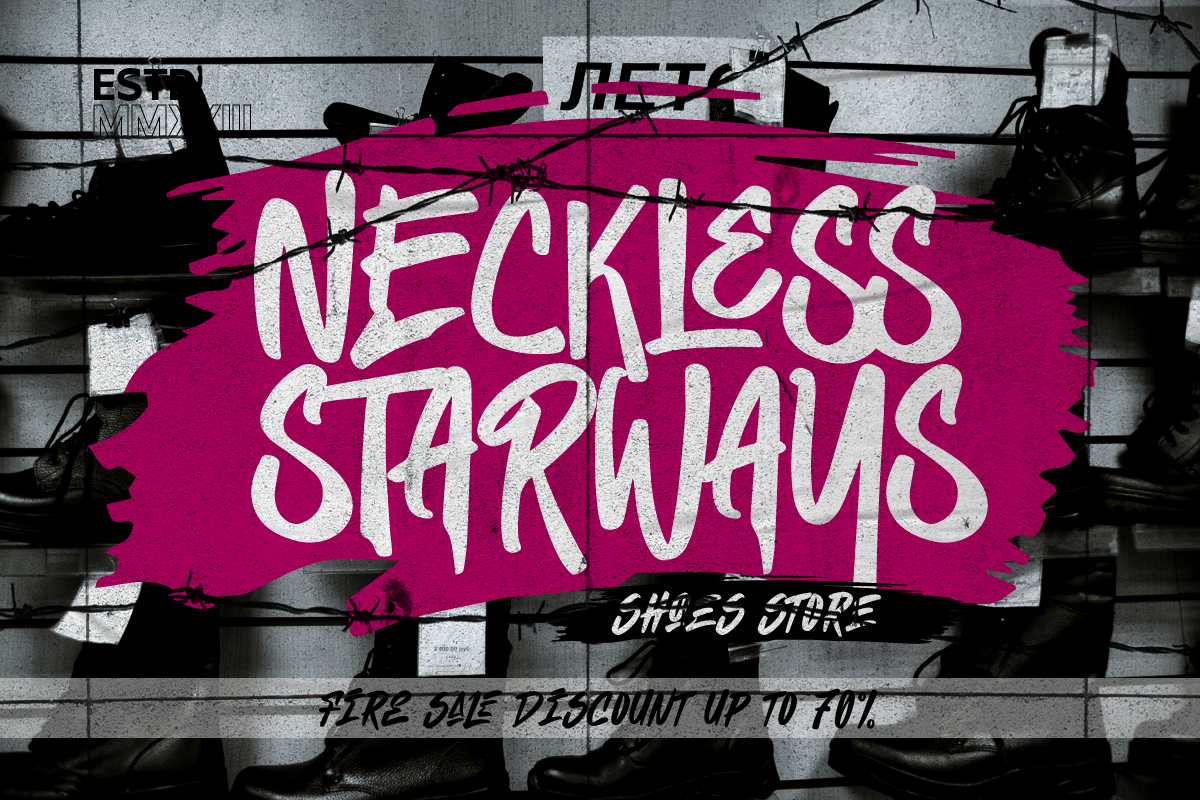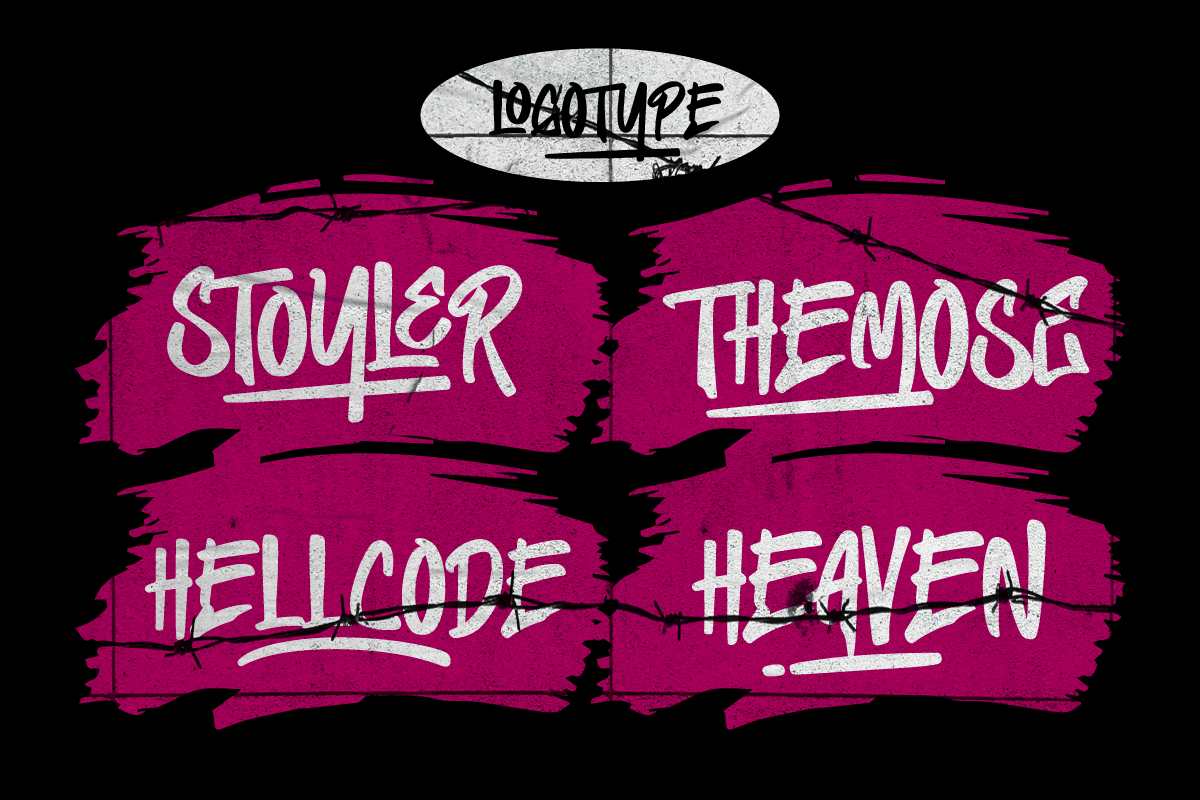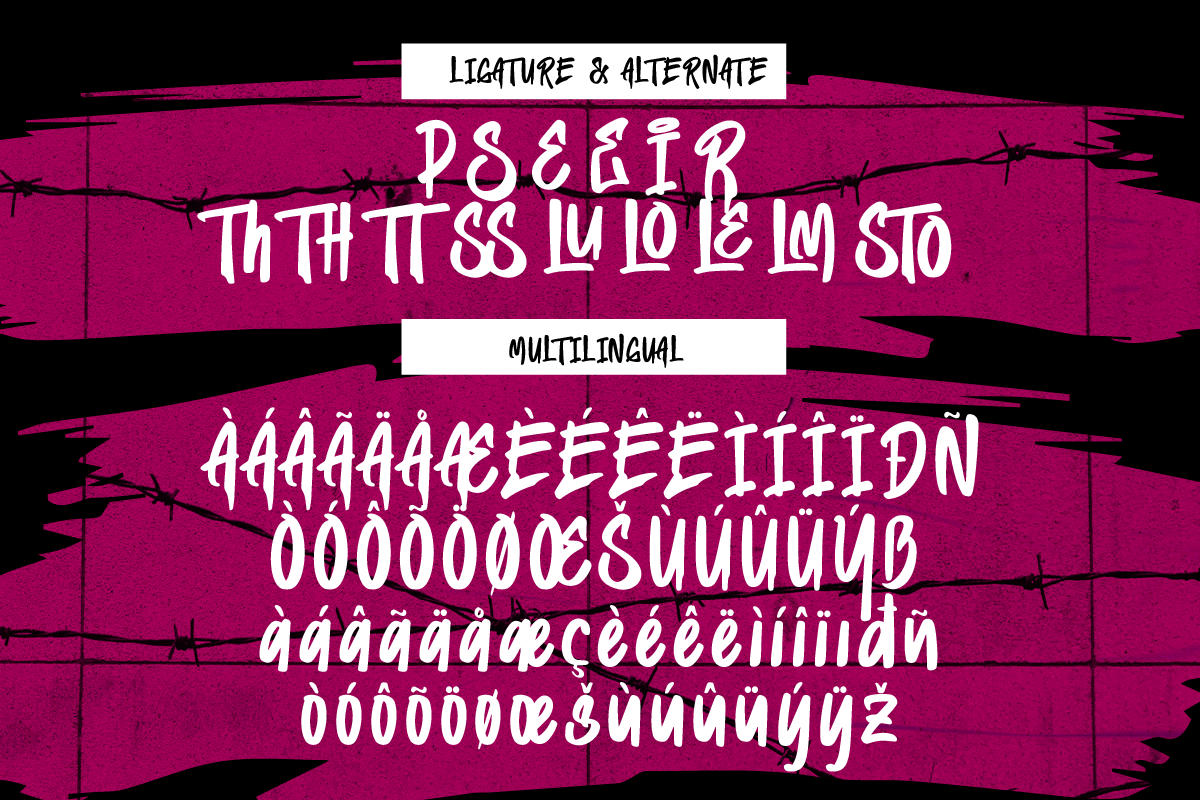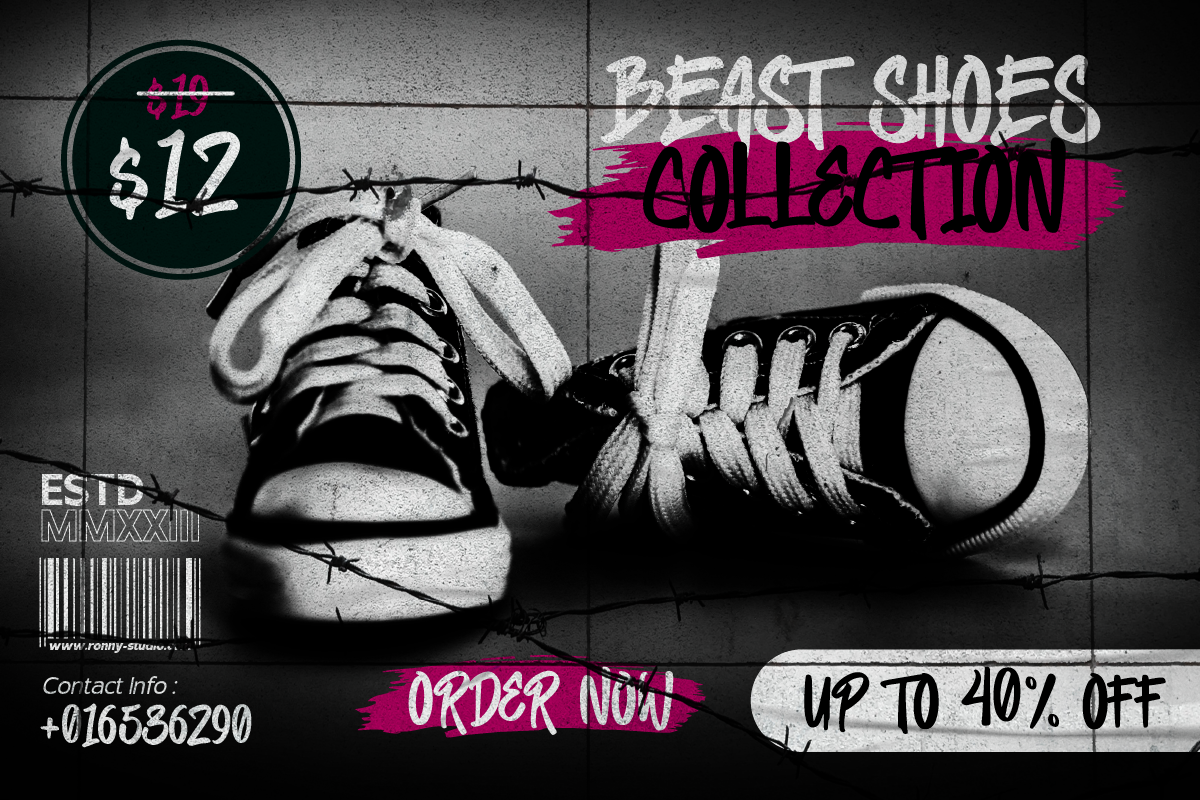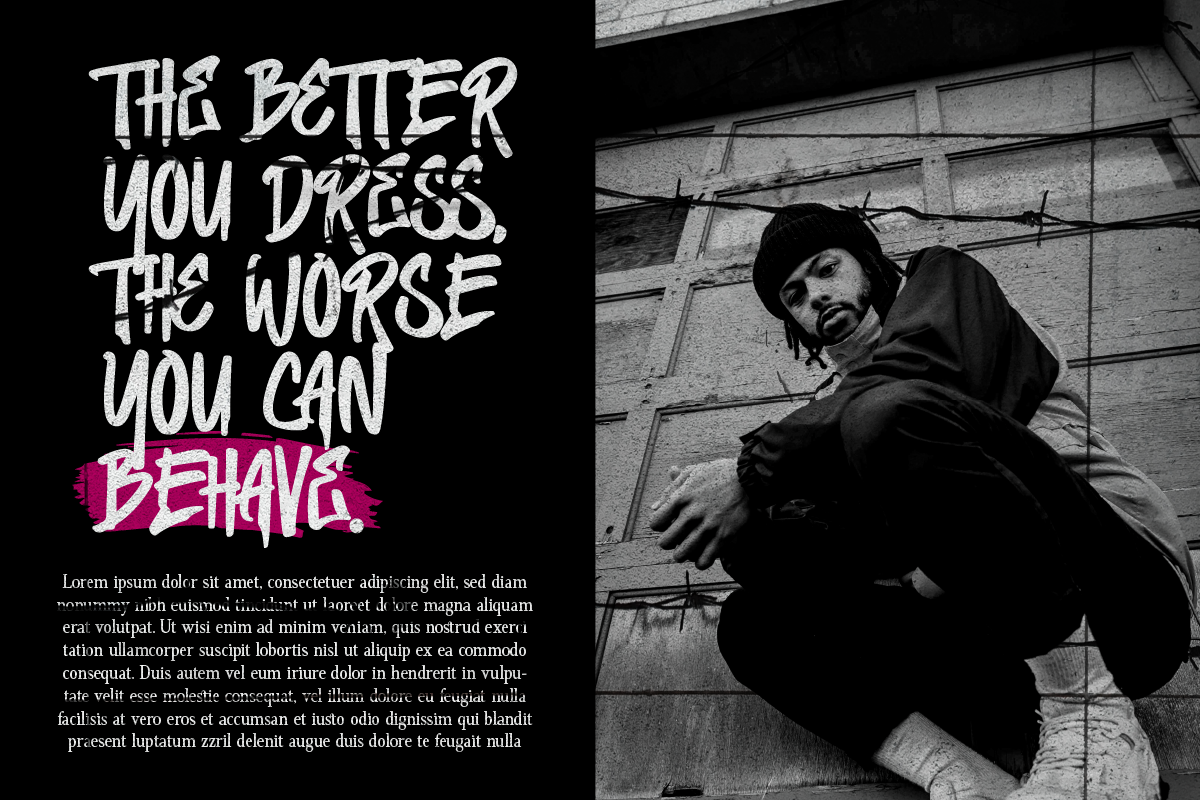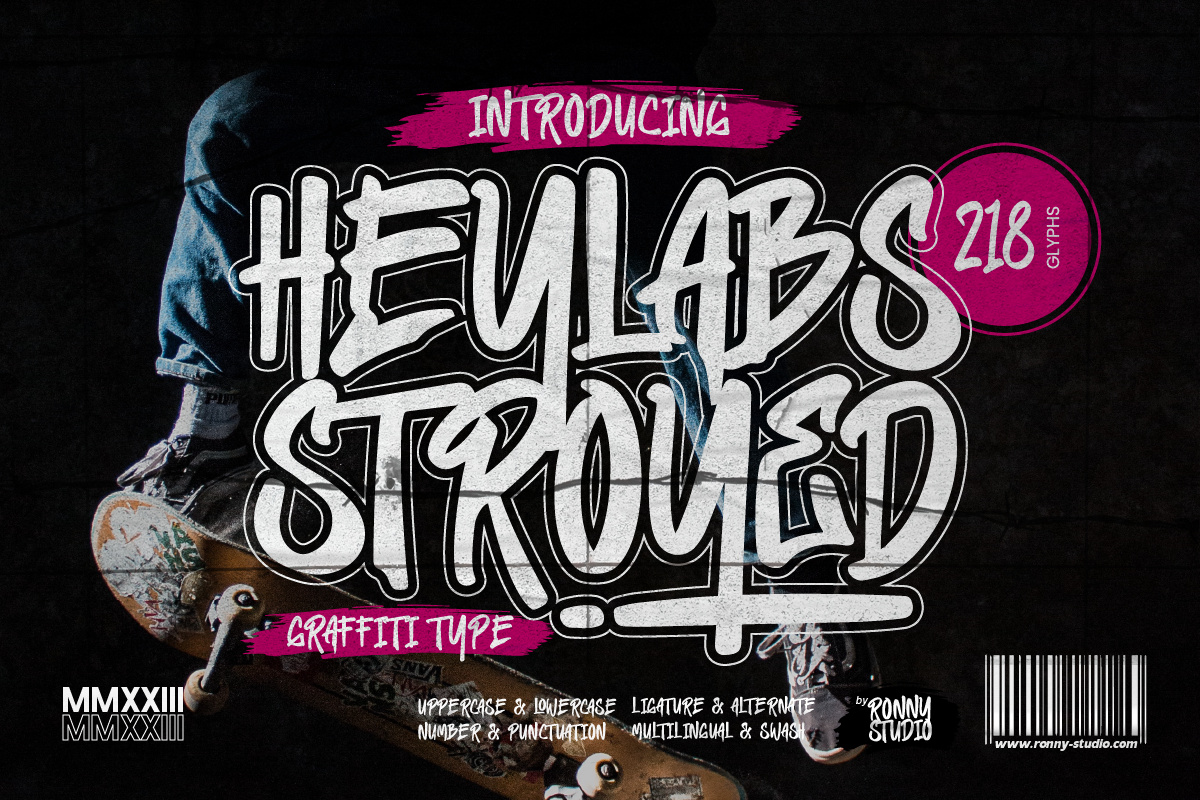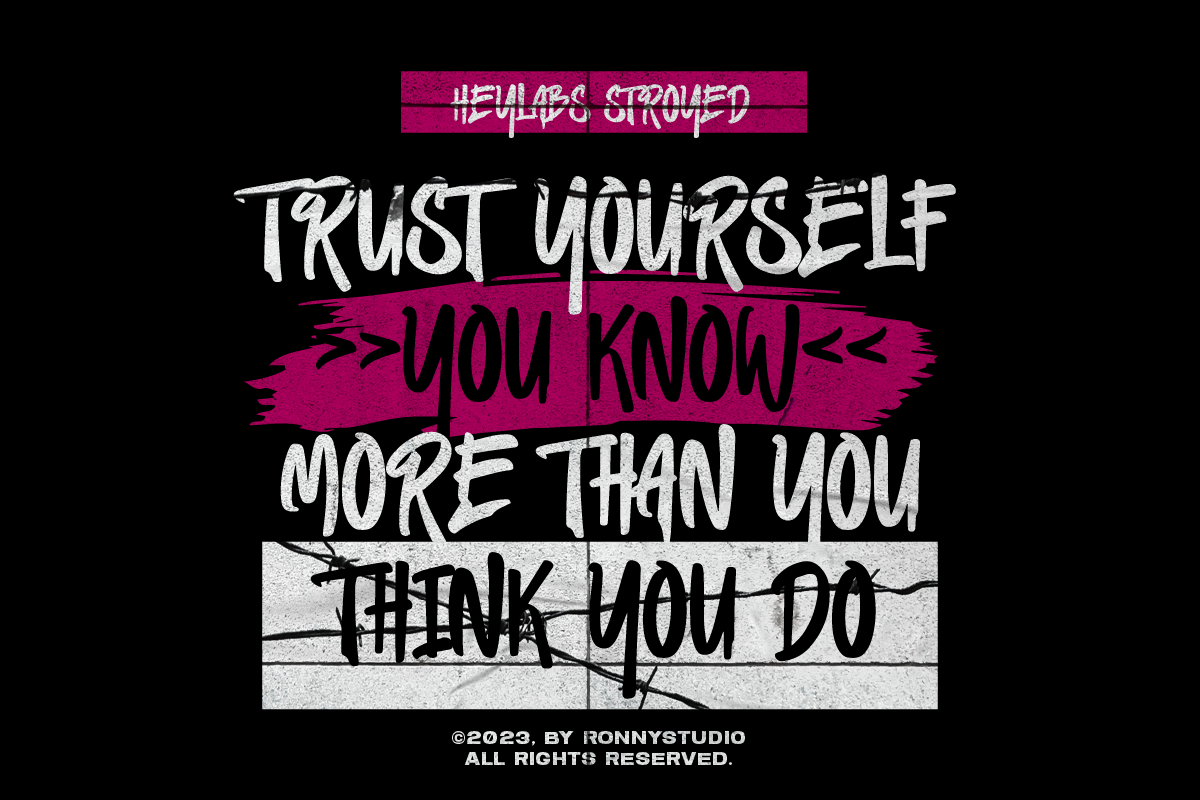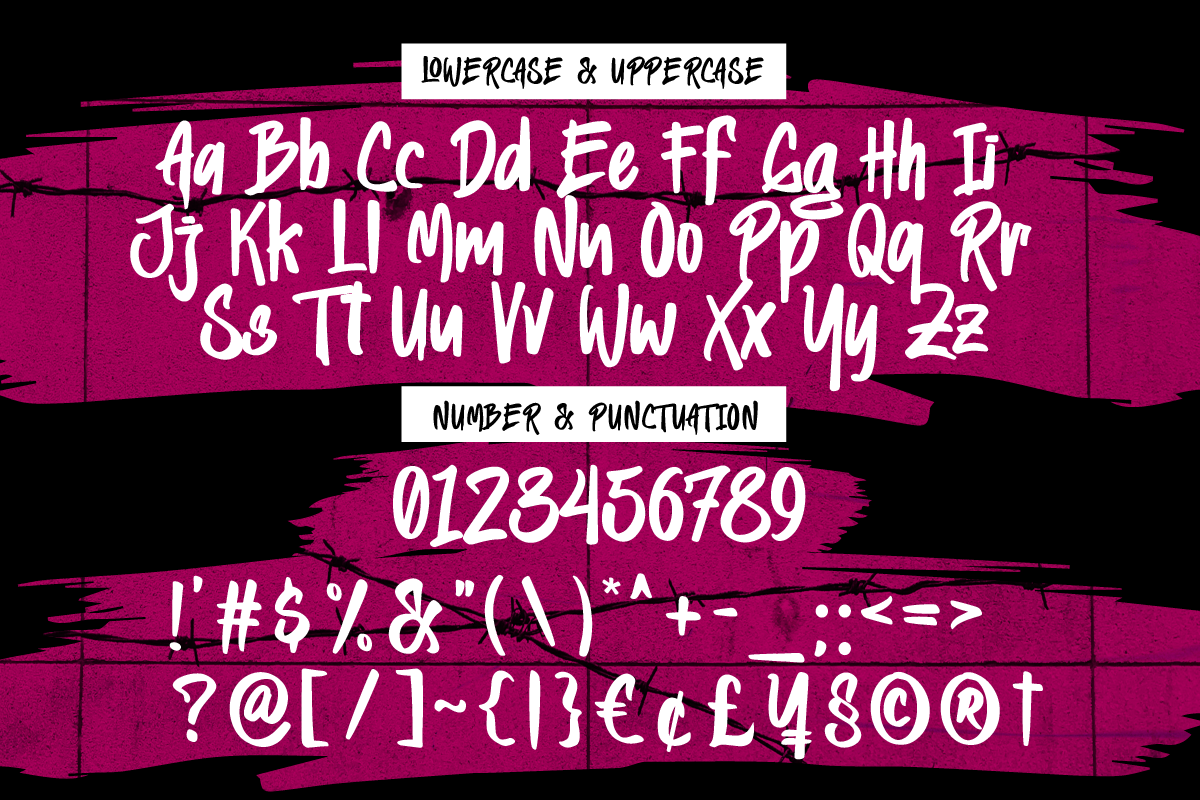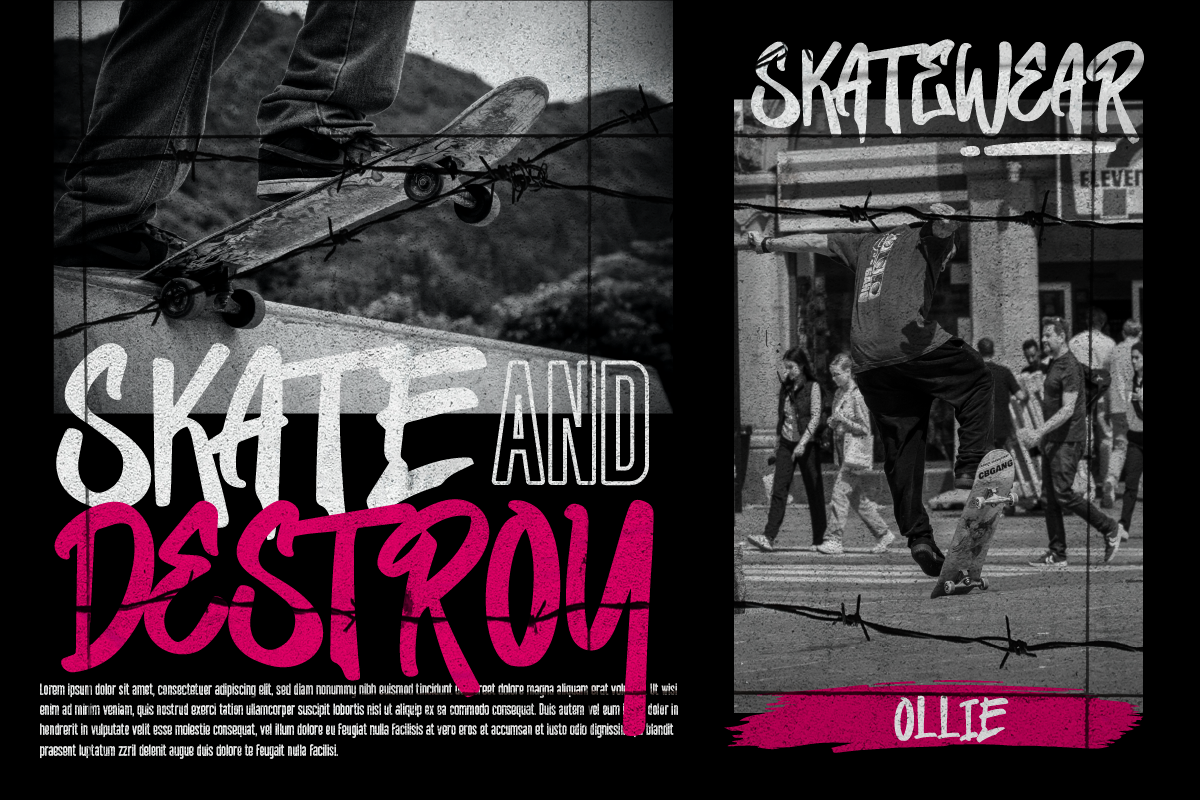
Heylabs Stroyed Graffiti Type Font
Heylabs Stroyed is distinctive handwriting and encapsulates the essence of street style. It gives every design project an urban vibe with its rugged and raw characteristics. This font is the perfect choice for people looking for a strong and influential typeface inspired by the rebellious spirit of street culture and graffiti.
This font is designed to be versatile, making it suitable for a wide range of creative projects. Whether you're working on a skateboard deck design, a streetwear stuff, or a poster for an underground event, this font will infuse your work with urban attitude and a raw, handcrafted feel. The uppercase characters in Strenght To Strenght are bold and impactful, while the lowercase letters exhibit a slightly more refined style, providing a balanced mix of legibility and street-inspired aesthetics.
This typeface is perfect for an poster event, movie title, streetwear stuff, magazine layout, fashion brand, quotes, or simply as a stylish text overlay to any background image.
- Alternate & Ligature